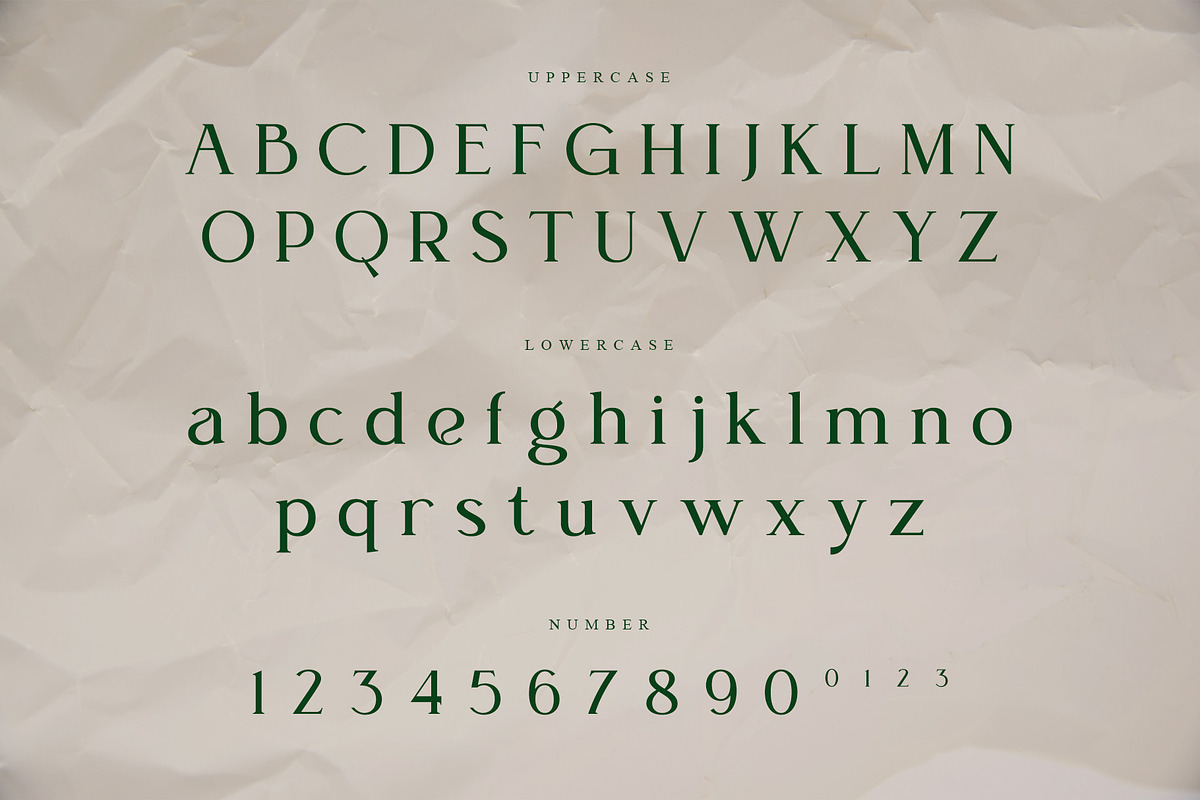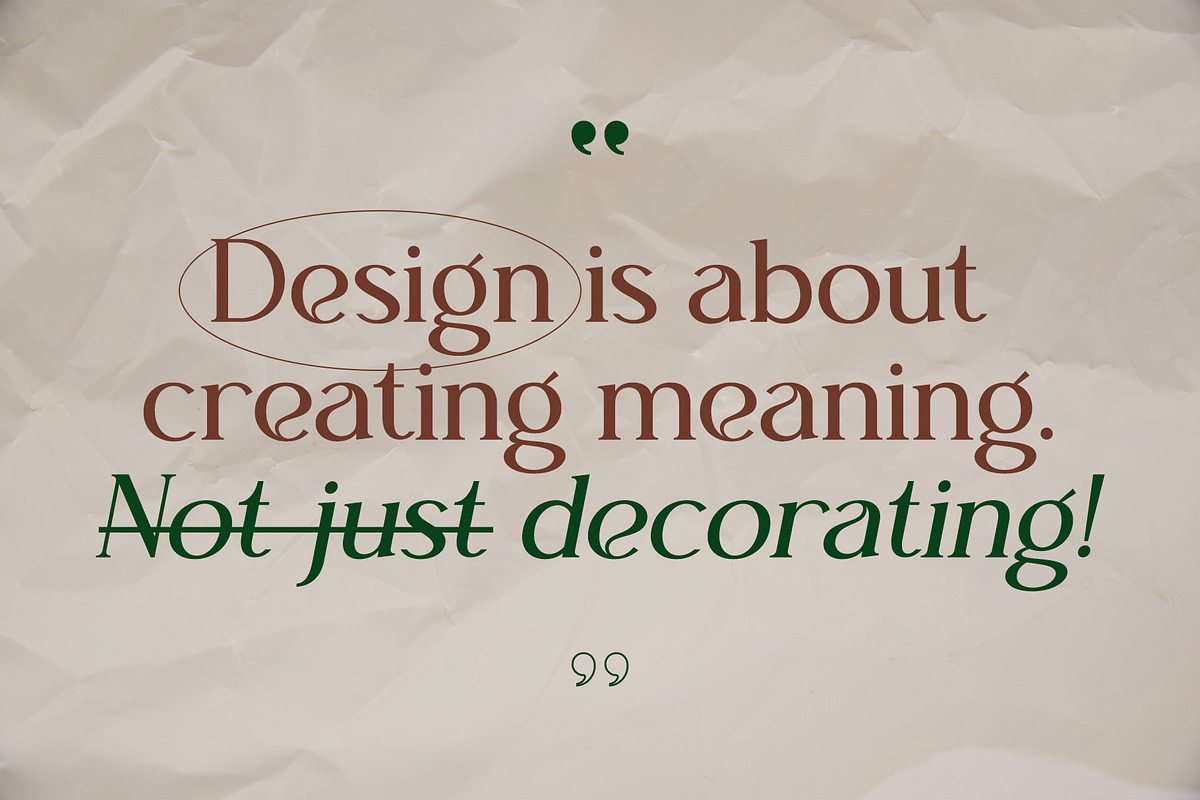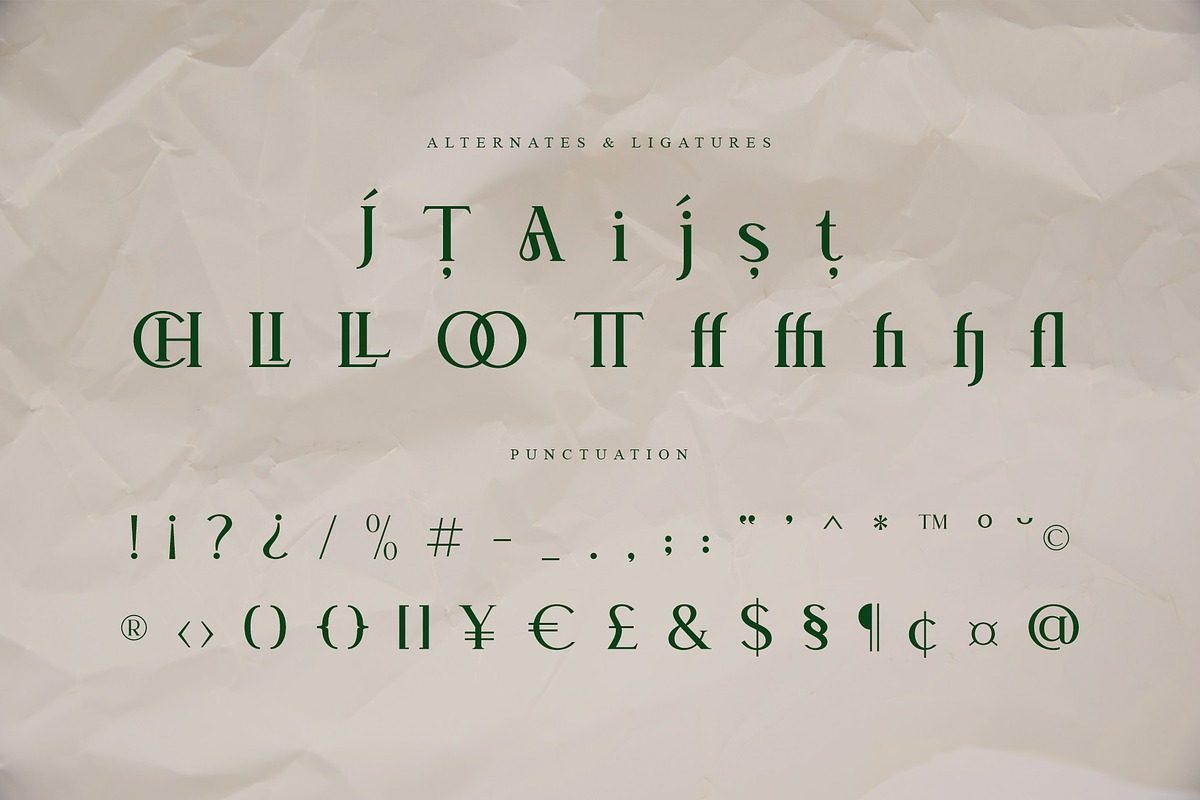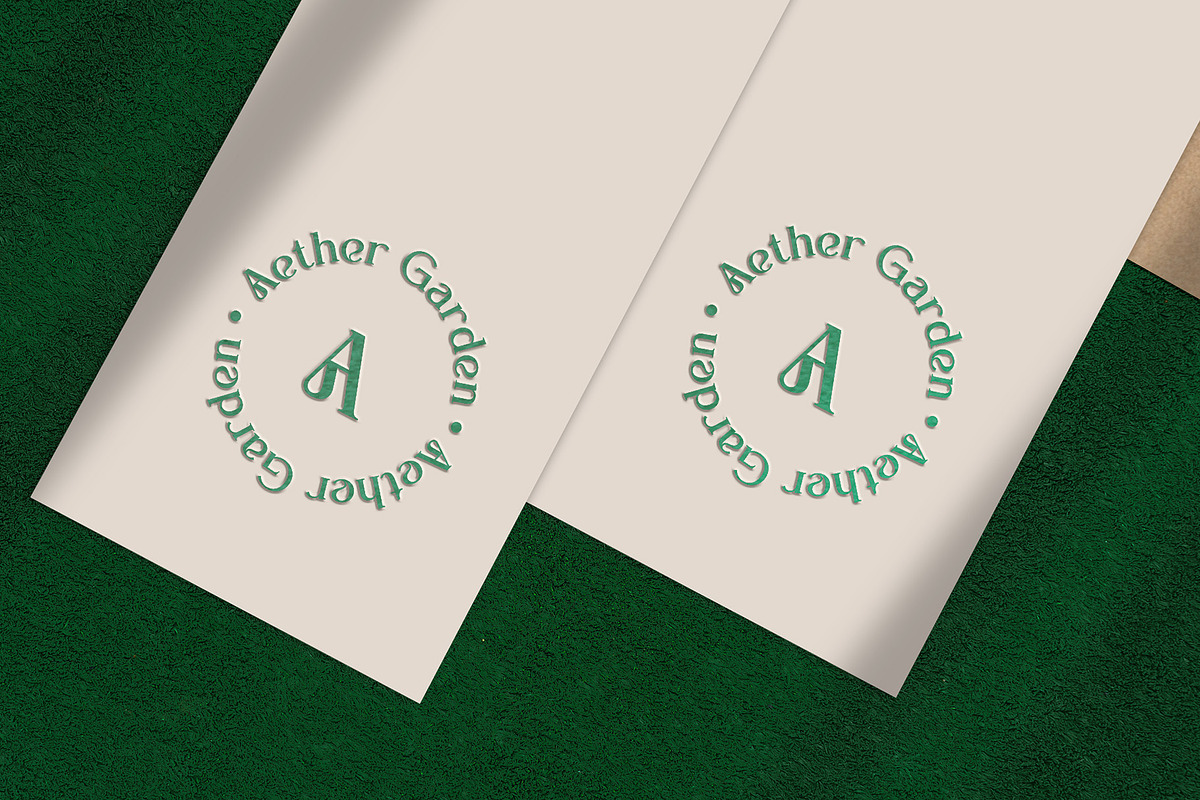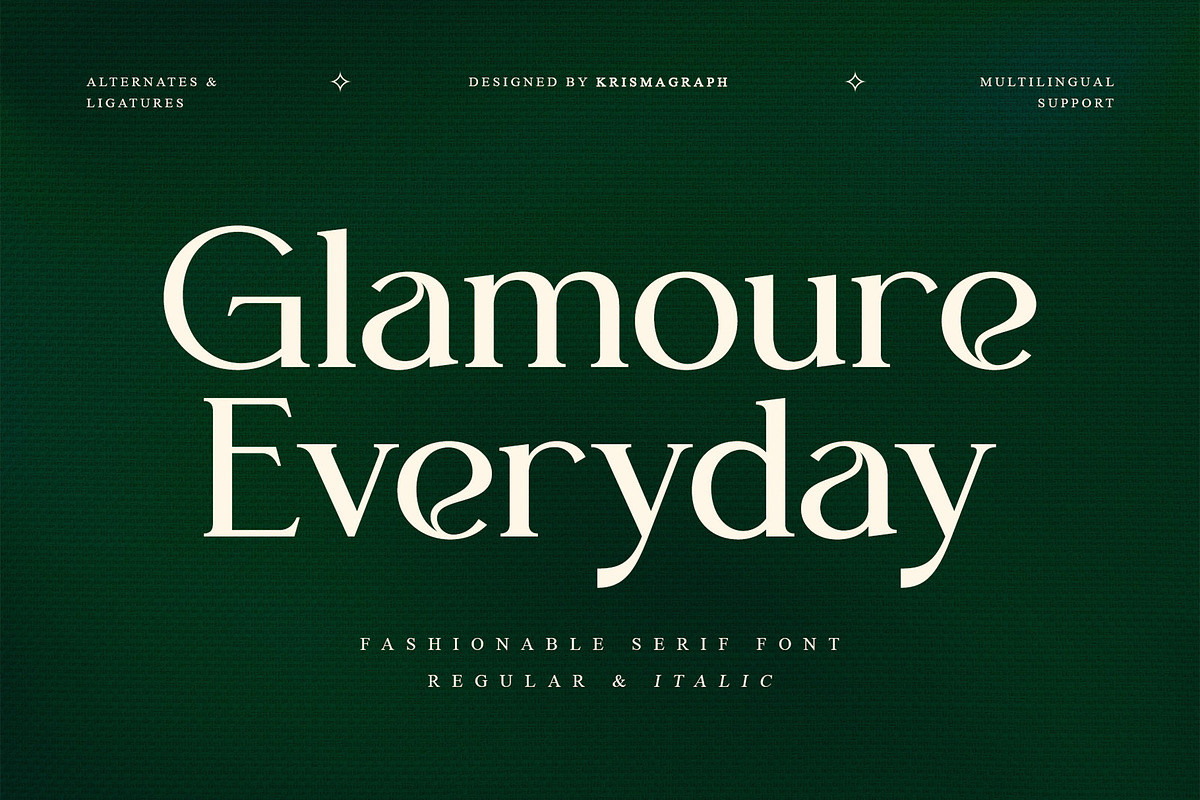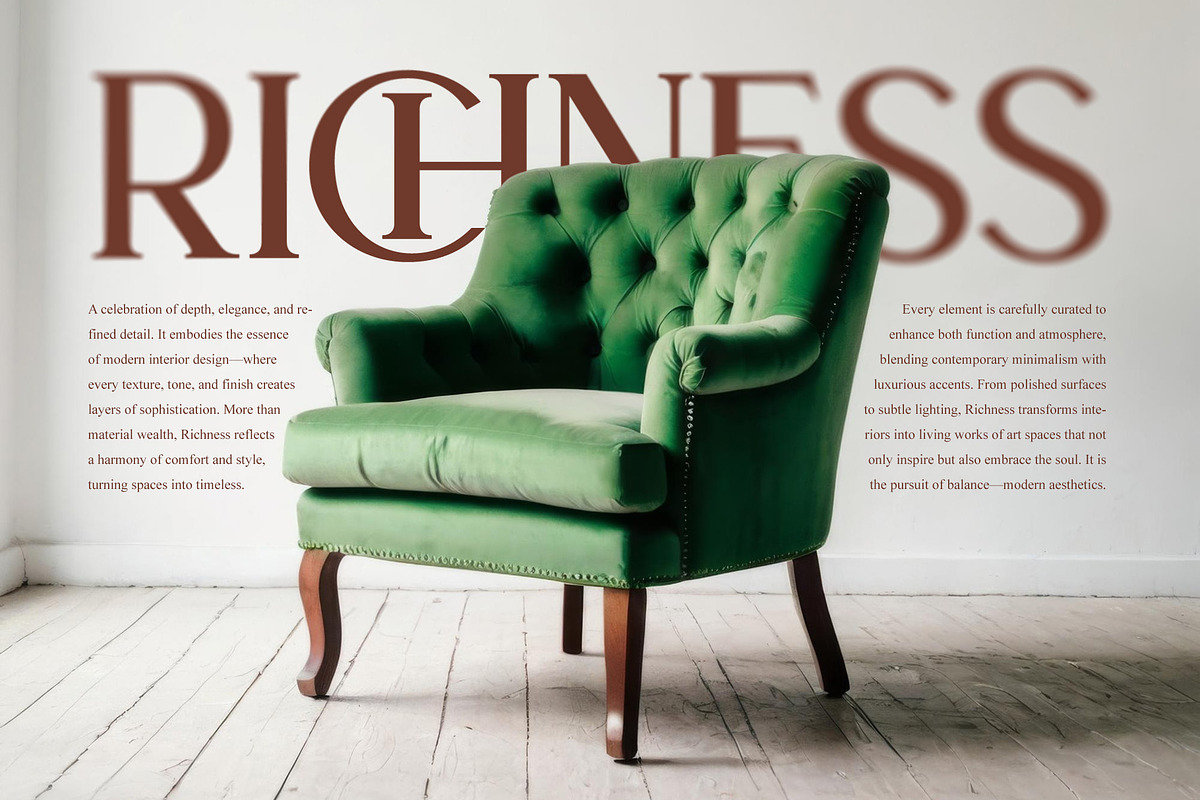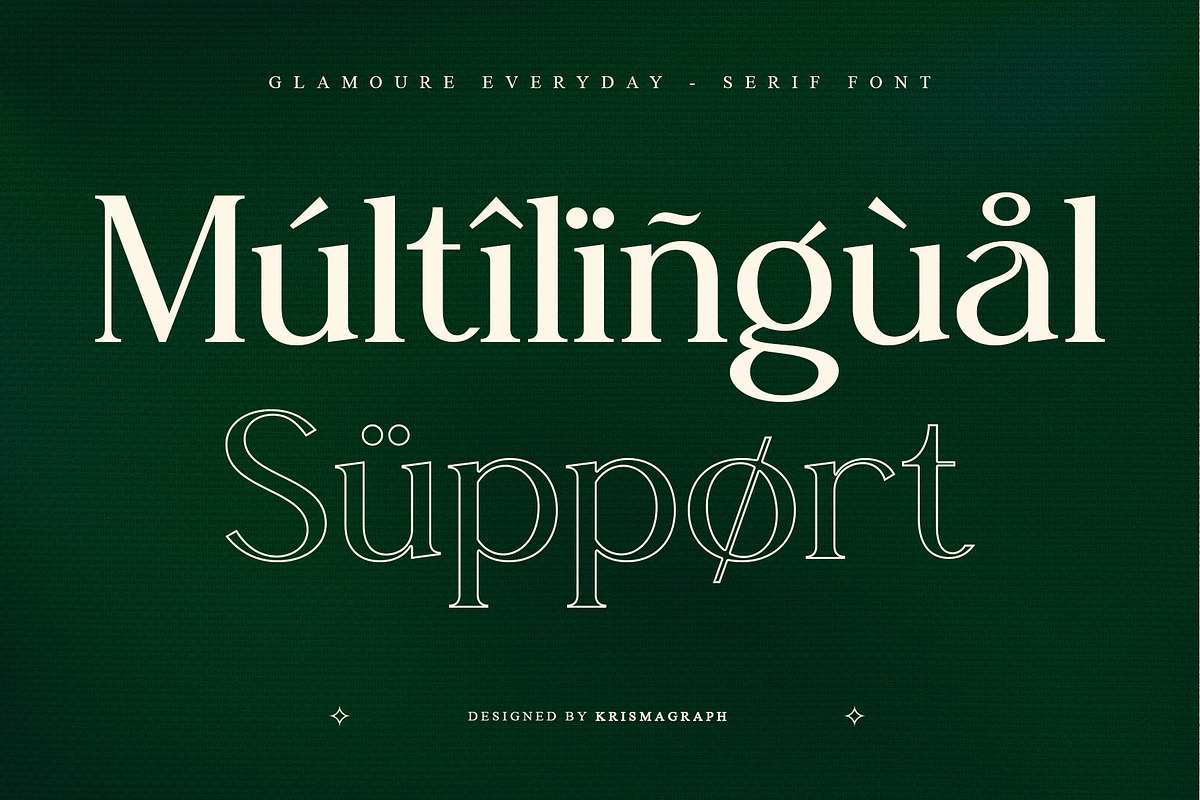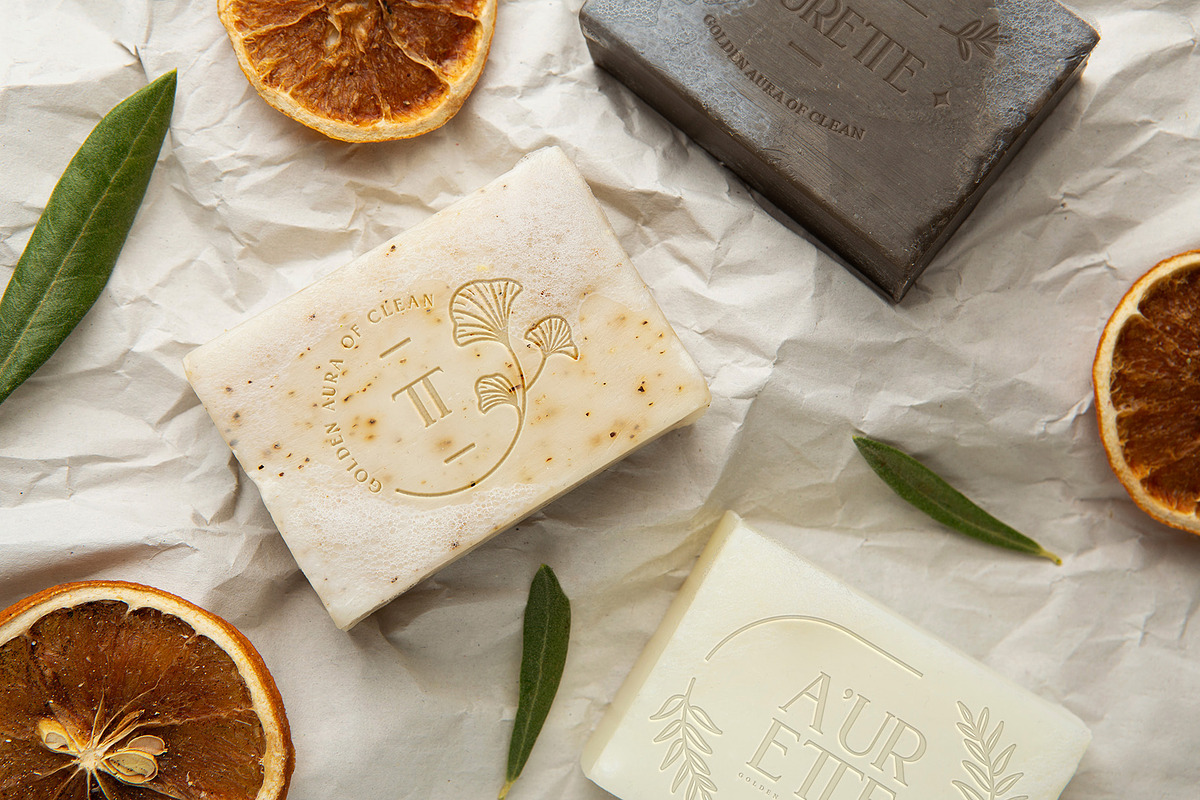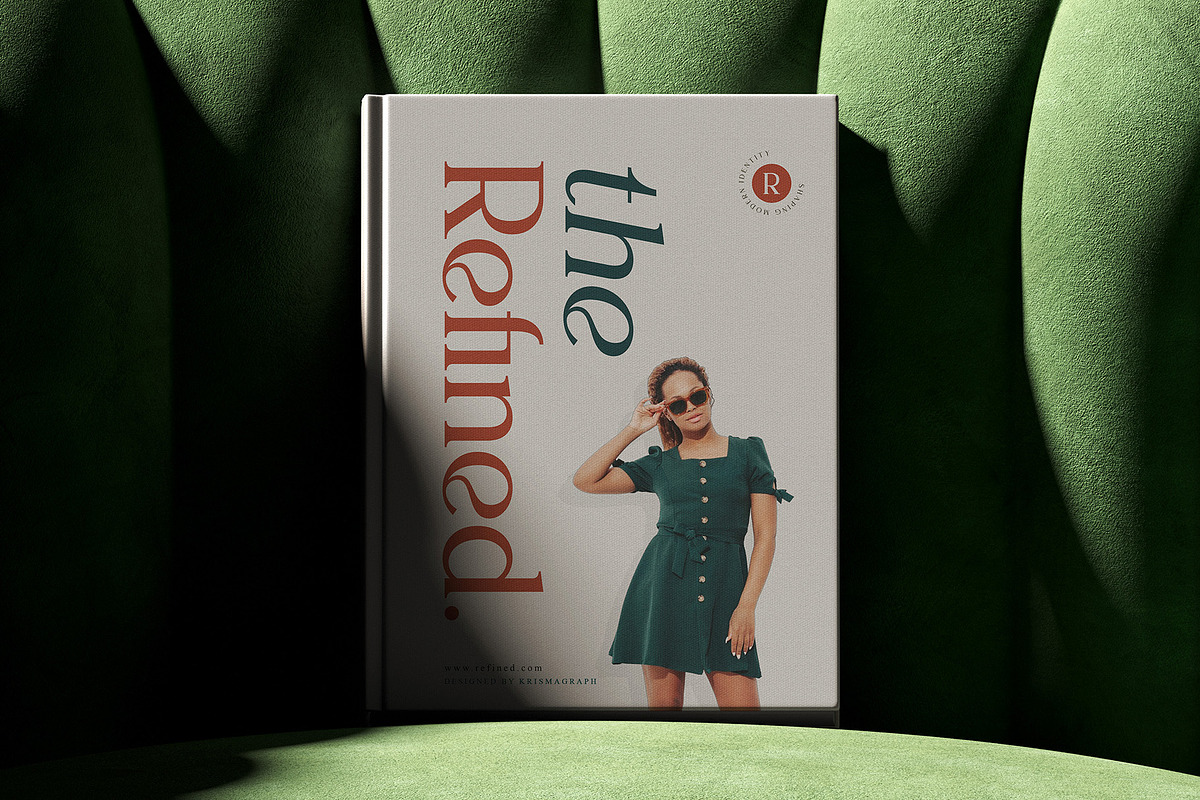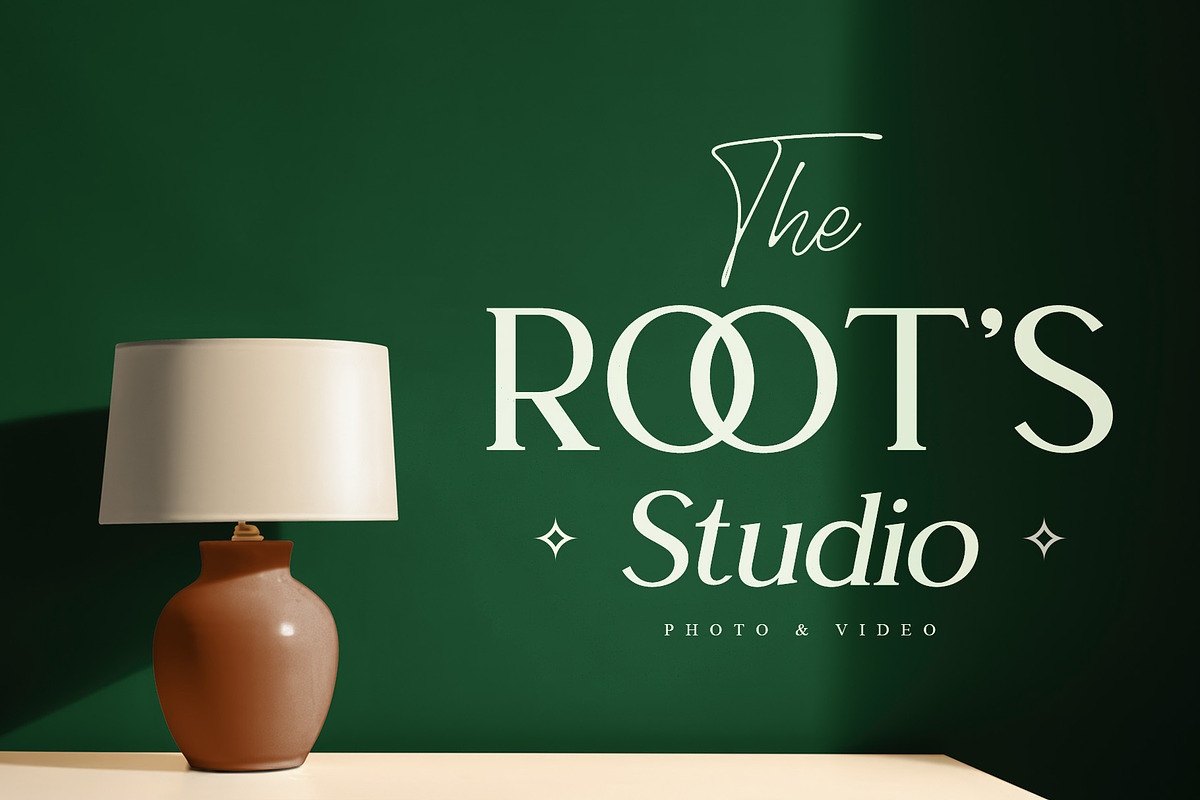
Glamoure Everyday | Modern Serif
Introducing Glamoure Everyday Modern Serif Font. Glamoure Everyday is made mainly for headlines, titles, editorial and other short texts and is well-suited for advertising, vintage mood board, branding, logotypes, packaging, titles, editorial design, modern logos, websites, social media quotes, wedding branding, modern and vintage design.
- Glamoure Everyday regular & italic
- Elegant Alternates & Ligatures
- Multilingual Supports (Western Europe)
- Number & punctuations